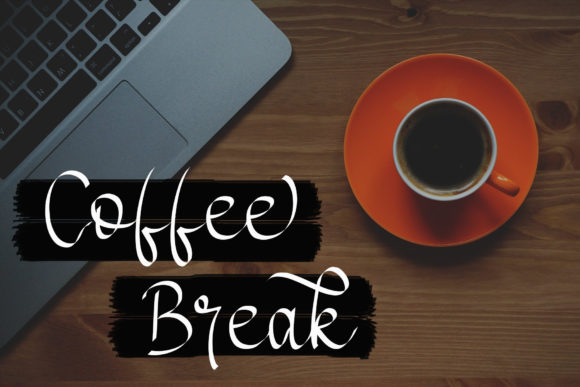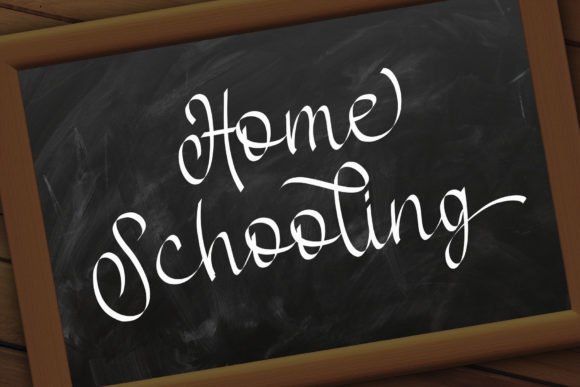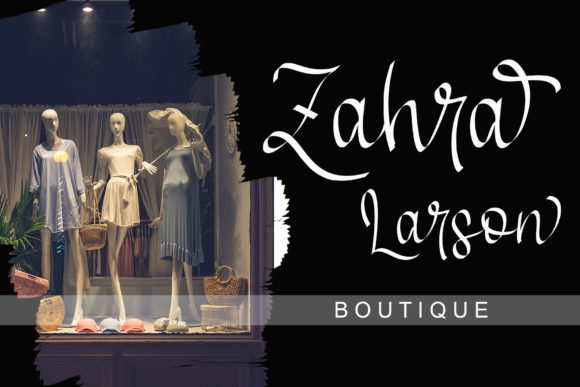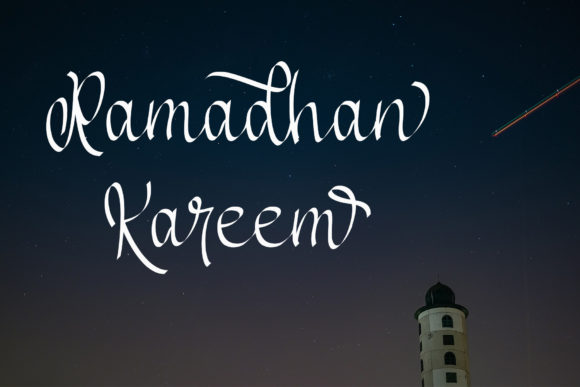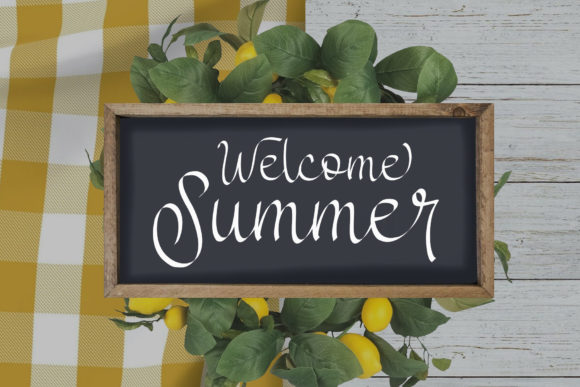
About Anybella Font
Anybella is a beautiful light handwritten font with a unique feel and a stunning impact. It will add a luxury spark to any design project that you wish to create! Anybella is PUA encoded which means you can access all of the glyphs and swashes with ease!